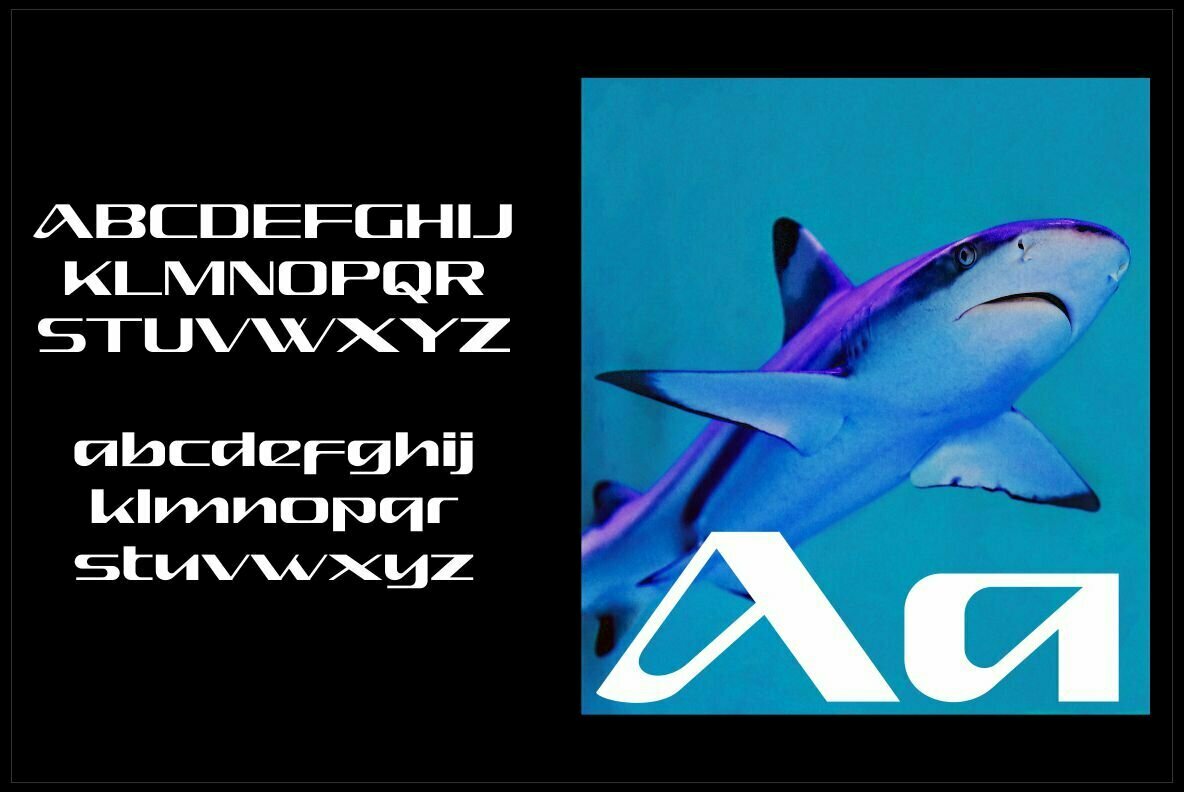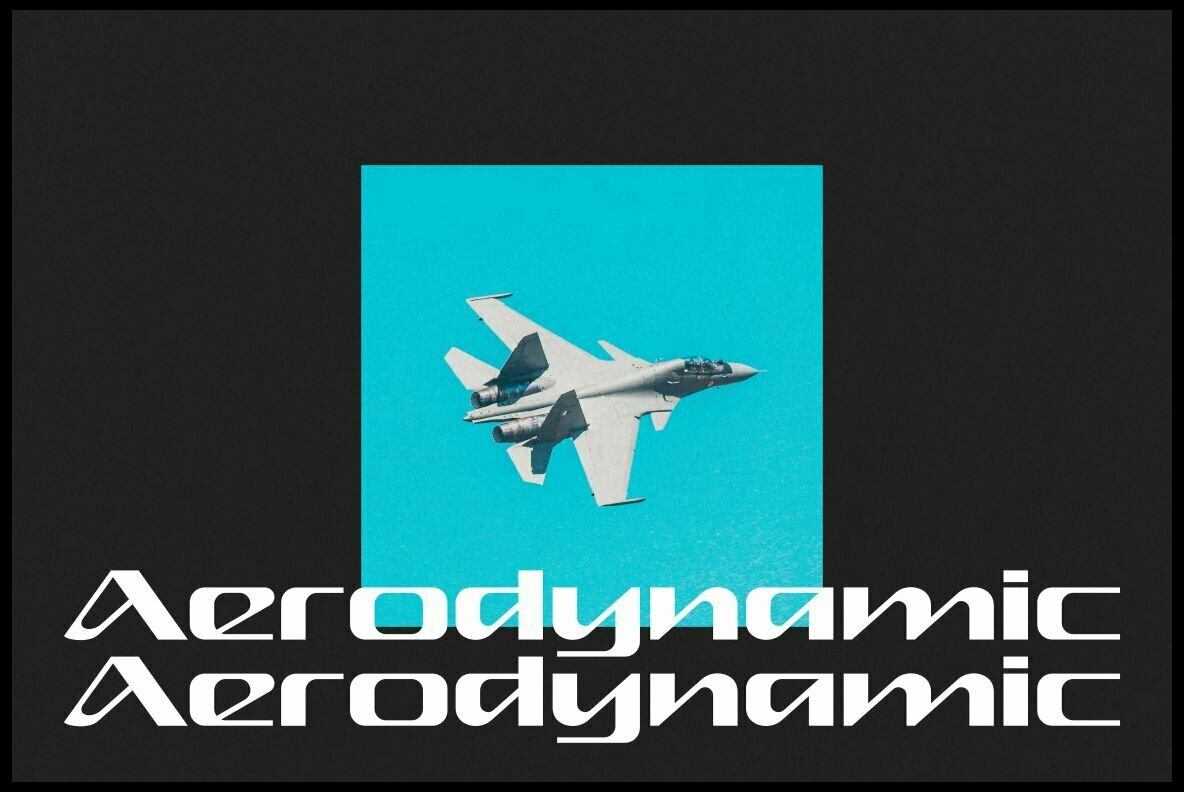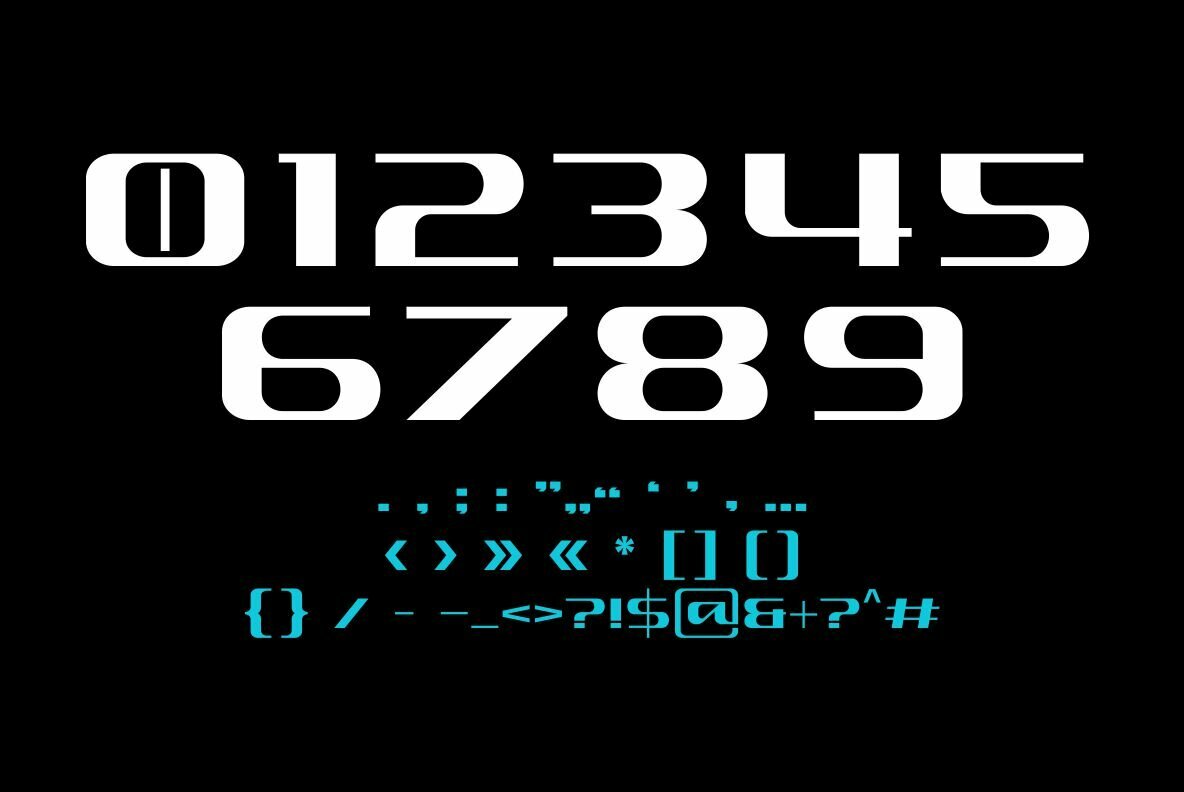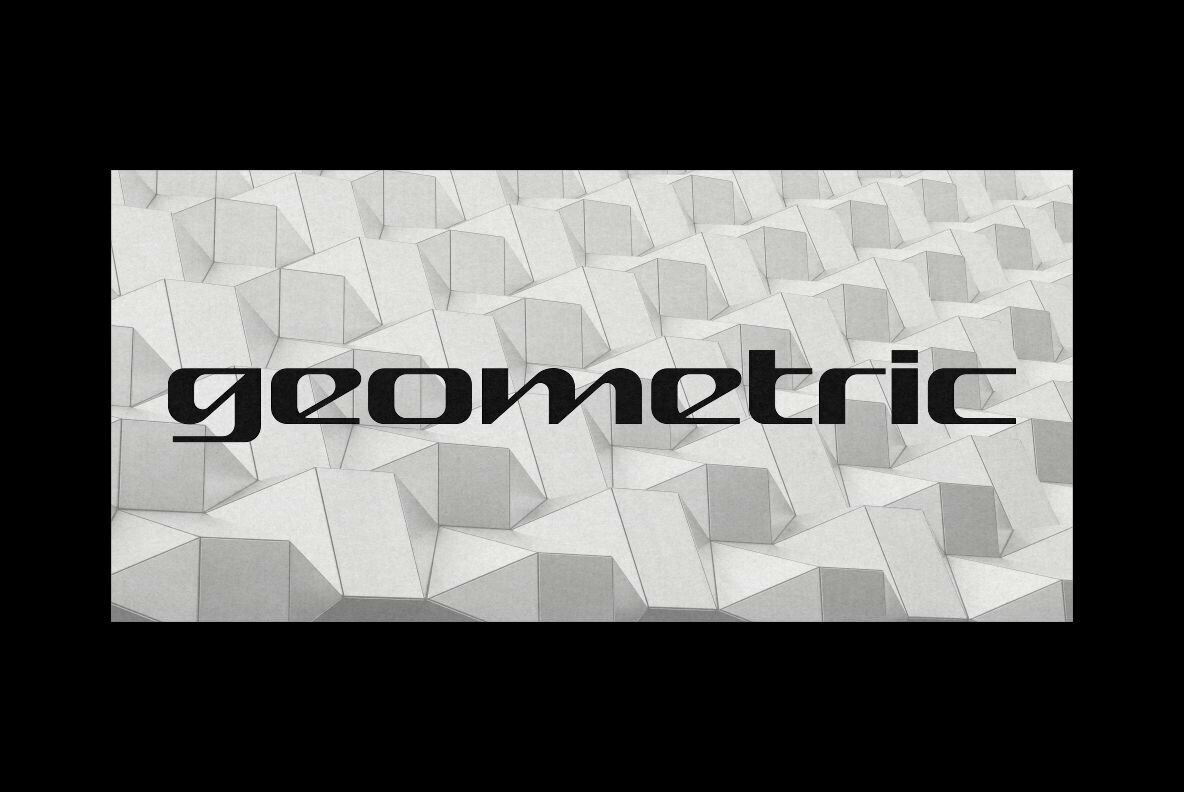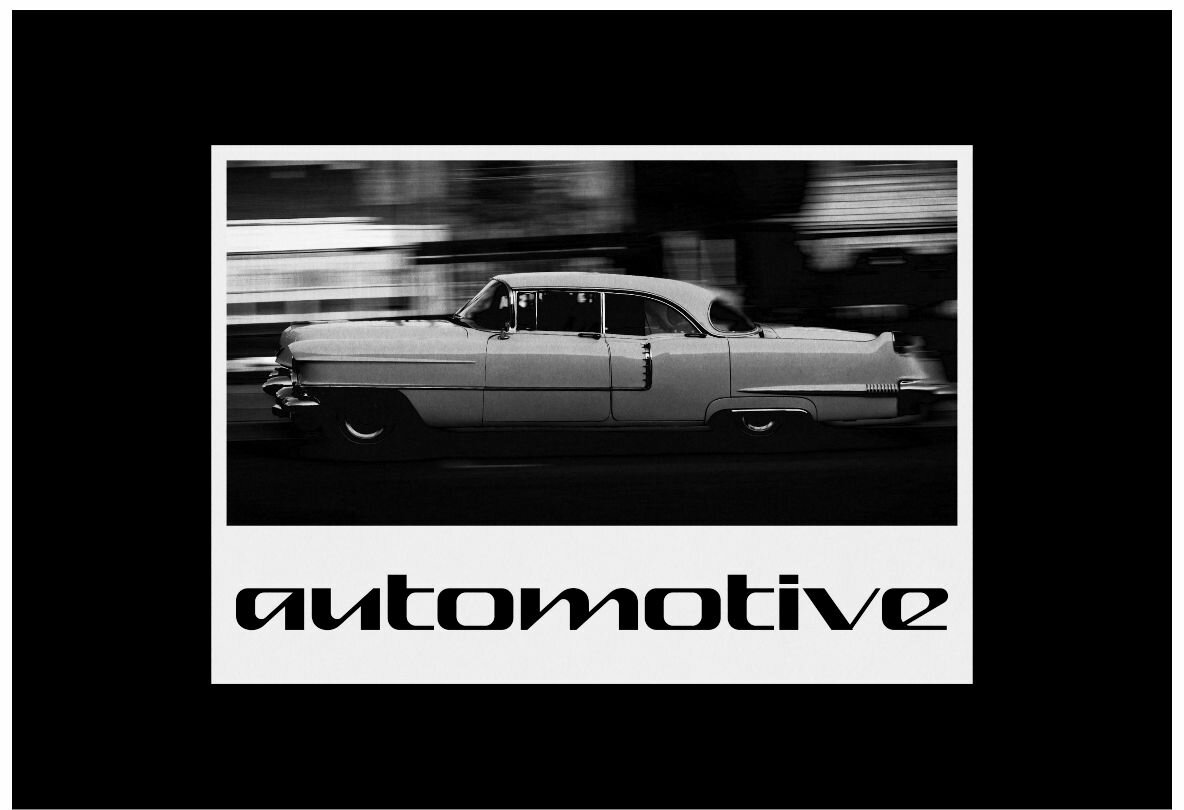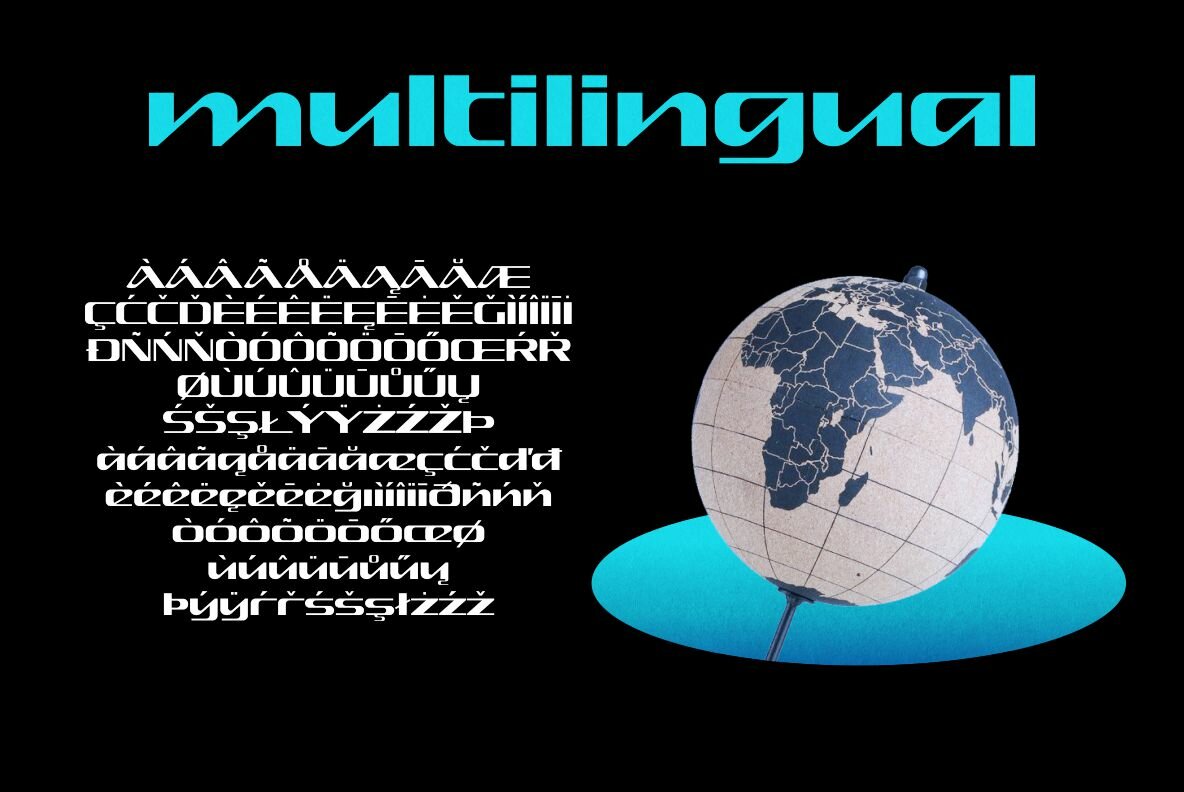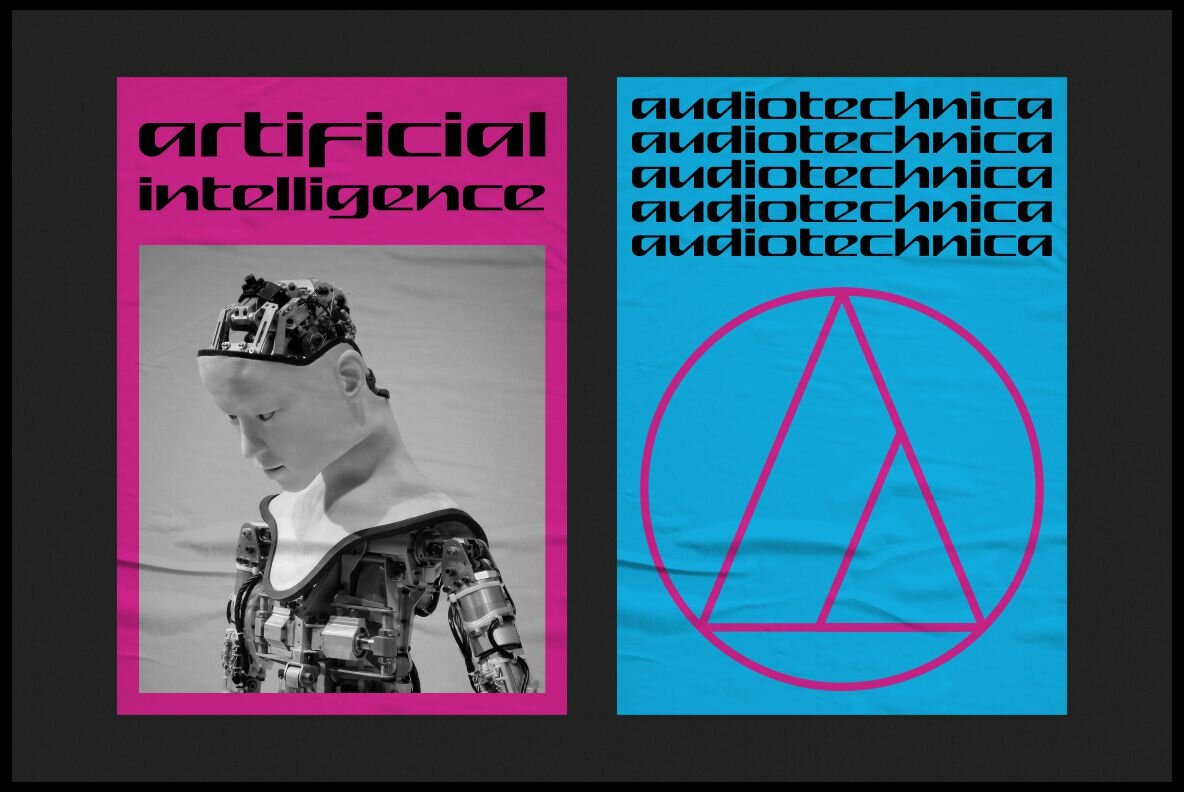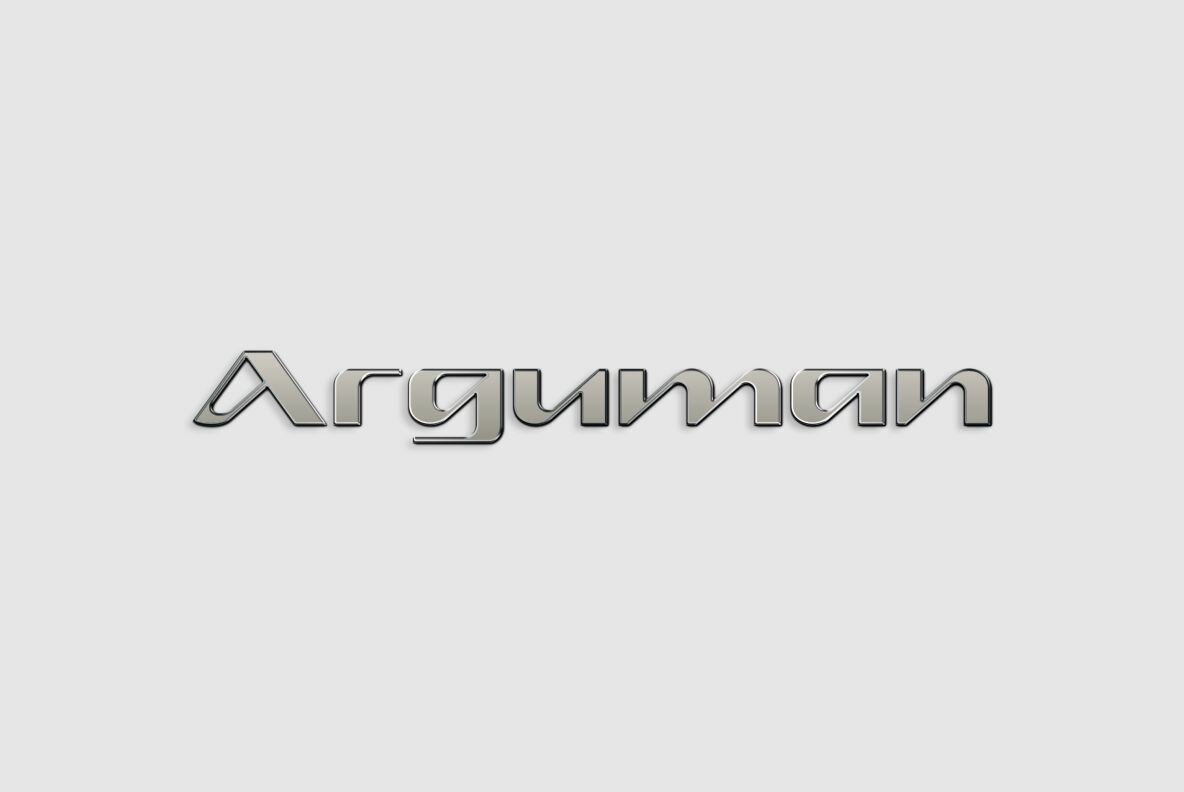
Arguman Font
Arguman
Arguman seamlessly blends modernity with nostalgia, drawing inspiration from the sleek designs of car emblems and aircraft aesthetics. This distinctive typeface is perfect for retro, futuristic, automotive, and gaming-themed projects, adding a dynamic and energetic touch to your design work.Arguman: A Modern Font With Retro Flair